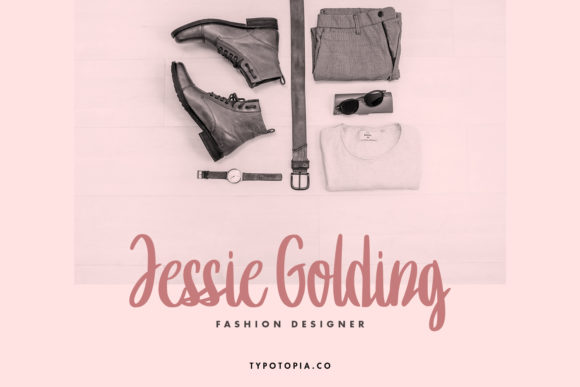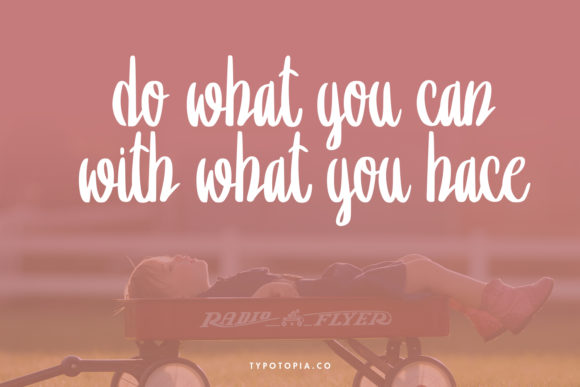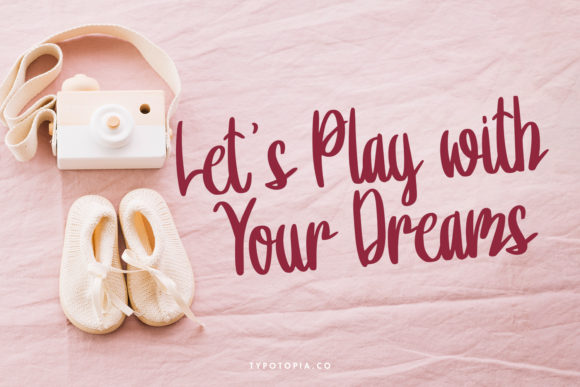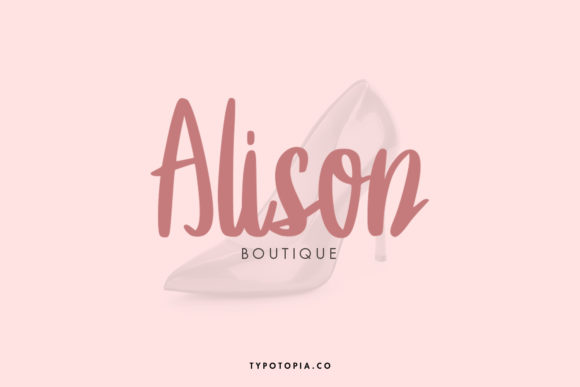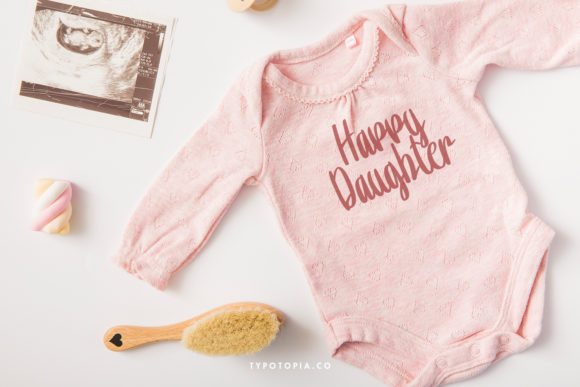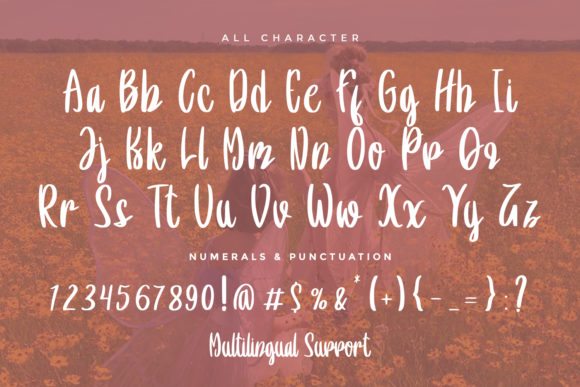
Beleriand Font: The Playful and Unique Handwritten Font for Stunning Designs
In the world of typography, fonts play a crucial role in making or breaking a design. A font can elevate your project from ordinary to extraordinary, and Beleriand Font is one such gem that can add a touch of magic to your creations. In this article, we’ll dive into the world of Beleriand Font, exploring its features, benefits, and uses, and why it’s a must-have for designers and crafters.
What is Beleriand Font?
Beleriand Font is a playful and unique handwritten font that has taken the design world by storm. Its distinctive and beautiful touch makes it an ideal choice for creating eye-catching logos, branding, and quotes. Every letter in the Beleriand Font has a unique personality, which sets it apart from other fonts and makes your design come alive.
Features of Beleriand Font
So, what makes Beleriand Font so special? Here are some of its key features:
- Unique and Handwritten: Beleriand Font is a handwritten font with a unique touch. Each letter is carefully crafted to give your design a personal and artistic feel.
- Playful and Whimsical: The font has a playful and whimsical feel to it, making it perfect for designs that require a touch of fun and personality.
- Elegant and Sophisticated: Despite its playful nature, Beleriand Font is also elegant and sophisticated, making it suitable for a wide range of design projects.
- Multipurpose: Beleriand Font is a versatile font that can be used for various design projects, including logos, branding, quotes, posters, and more.
Benefits of Using Beleriand Font
Using Beleriand Font in your design projects can have numerous benefits. Here are some of the advantages of using this amazing font:
- Stand Out from the Crowd: With Beleriand Font, you can create designs that stand out from the crowd. Its unique and playful touch will make your project memorable and eye-catching.
- Easy to Read: Despite its artistic nature, Beleriand Font is easy to read, making it perfect for designs that require a clear and concise message.
- Customizable: Beleriand Font is highly customizable, allowing you to adjust its size, color, and style to fit your design needs.
- Time-Saving: With Beleriand Font, you can save time and effort in creating a unique and beautiful design. Its pre-designed letters and characters make it easy to create stunning designs in no time.
Uses of Beleriand Font
Beleriand Font is a versatile font that can be used for various design projects. Here are some of the popular uses of this amazing font:
- Logo Design: Beleriand Font is perfect for creating eye-catching logos that reflect your brand’s personality and style.
- Branding: Use Beleriand Font to create a consistent brand image across all your marketing materials, including business cards, brochures, and website.
- Quotes and Posters: Beleriand Font is ideal for creating inspiring quotes and posters that grab attention and convey a message.
- Social Media Graphics: Use Beleriand Font to create stunning social media graphics that stand out in a crowded feed.
Tips for Using Beleriand Font
To get the most out of Beleriand Font, here are some tips to keep in mind:
- Experiment with Colors: Beleriand Font looks great in various colors, so don’t be afraid to experiment and find the perfect color scheme for your design.
- Mix and Match: Combine Beleriand Font with other fonts to create a unique and interesting design.
- Keep it Simple: Don’t overcomplicate your design. Keep it simple and clean to let Beleriand Font shine.
In conclusion, Beleriand Font is a playful and unique handwritten font that can elevate your design projects to the next level. Its distinctive and beautiful touch makes it perfect for creating eye-catching logos, branding, and quotes. With its numerous benefits, uses, and tips, Beleriand Font is a must-have for designers and crafters. So, what are you waiting for? Get creative with Beleriand Font and make your designs come alive!